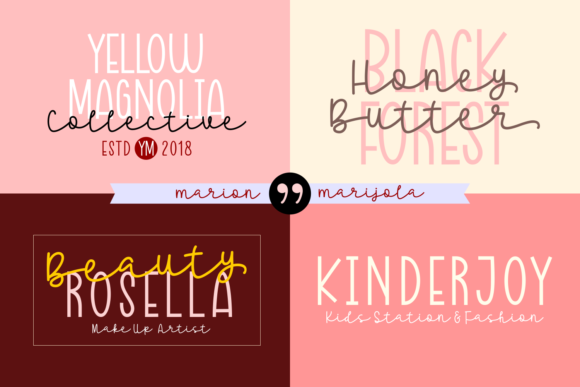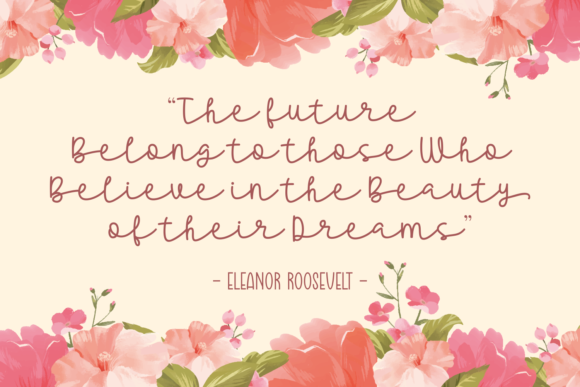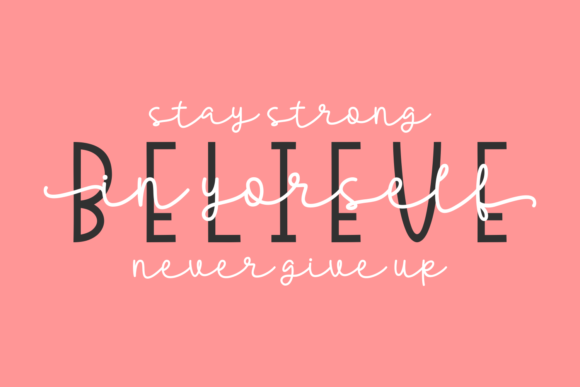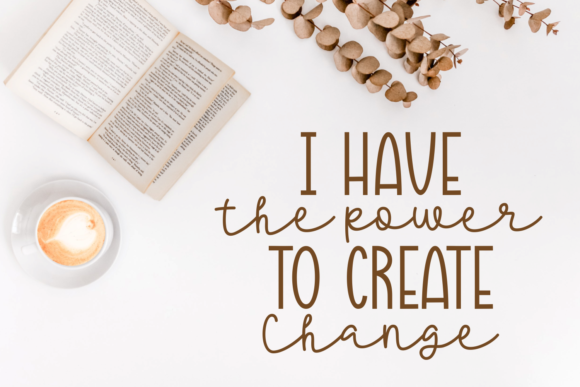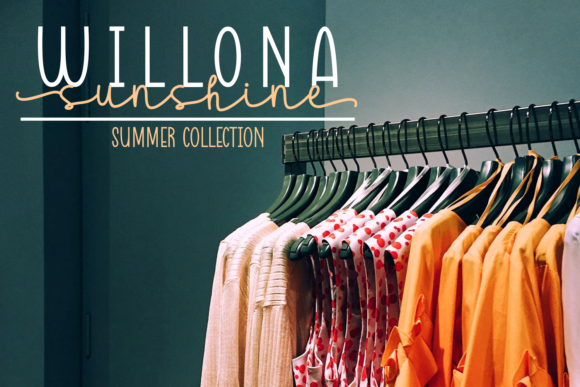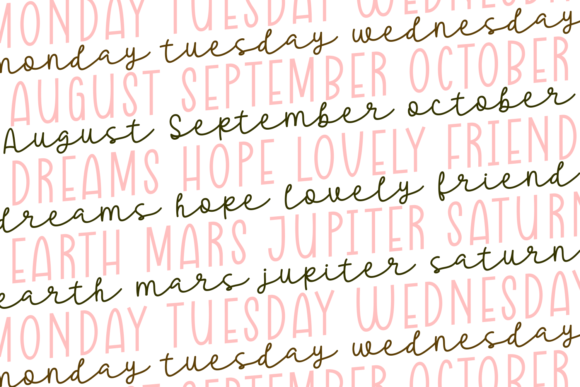
Introduction to Marion Marijola Font
Marion Marijola is a lovely and adaptable duo font (sans serif and script), that will fit perfectly on each of your designs.